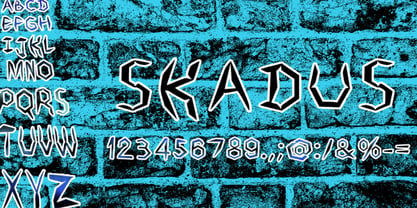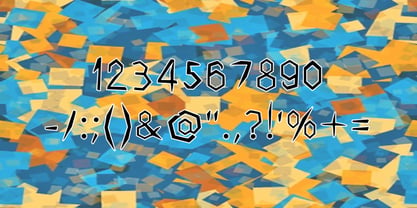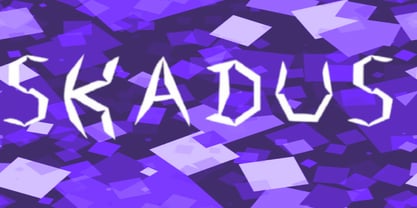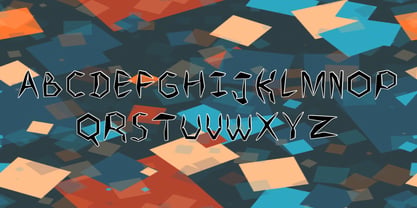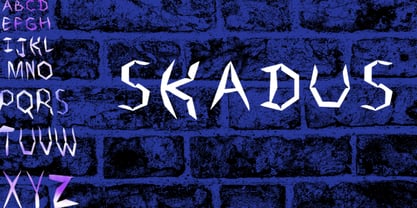
Skadus
The Skadus Font Family was designed by Angela Topalova and published by Pyramind. Skadus contains 1 styles. More about this family
Skadus is a modern display all-caps font crafted to make a bold impression. With its sharp lines and confident character, this typeface is ideal for projects requiring a strong visual presence while maintaining excellent readability. Perfect for posters, logos, album covers, social media graphics, and innovative branding, Skadus adds a unique edge that embodies contemporary style and expressive flair. Its versatility makes it suitable for various applications, ensuring your designs stand out with personality and impact.